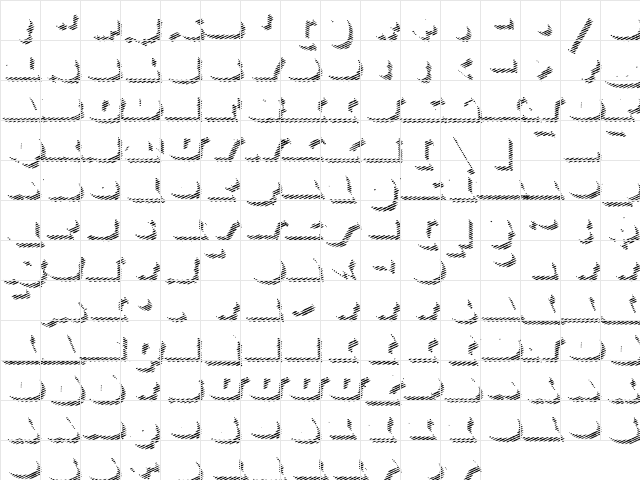
FederalNine DShadow
Design Context for FederalNine Typeface
FederalNine brings ornamental detail and strong personality to headlines and identities, where visual impact matters more than quiet functionality.
Font Pairing: Pair with a clean neutral sans-serif for body copy to let FederalNine's character lead without overwhelming the composition.
Pro Tip: Treat FederalNine as the centrepiece of your typographic hierarchy. One strong heading set in a decorative face can carry an entire layout.